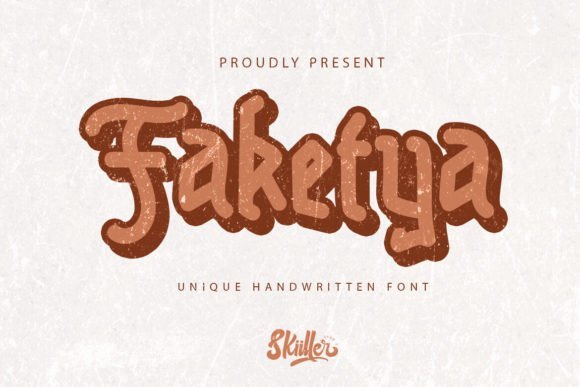
Unleash Your Creativity with the Faketya Font
Have you ever been at a children’s birthday party and seen the adorable handwritten invitations and decorations? The whimsical touch of a handwritten font can instantly elevate the mood and make any event more special. For designers, finding the perfect font to capture that playful spirit can be a challenge.
That’s where the Faketya Font comes in – a charming, handwritten font designed specifically for fun projects like children’s parties, cute quotes, and more. With its unique, cursive style, Faketya Font is the perfect addition to any designer’s toolkit. Whether you’re working on a project that requires a touch of whimsy or just want to add some personality to your designs, the Faketya Font is a valuable resource that’s sure to inspire.
- Unique Characteristics: Faketya Font features a unique blend of modern and traditional elements, with intricate details and ornaments that add a touch of elegance to any design.
Faketya Font Review
I recently had the chance to work with the Faketya Font, and I must say it’s an interesting choice. Here are my thoughts:
The Faketya Font has a unique, modern aesthetic that can add a touch of sophistication to any design project.
The font is highly legible, making it suitable for both digital and print materials.
The Faketya Font comes in a range of weights and styles, providing designers with plenty of flexibility.
The Faketya Font may not be suitable for projects that require a more traditional or classic look.
The font’s bold weights can appear somewhat harsh in certain contexts.
The Faketya Font may require some adjustments to line spacing and kerning to ensure optimal readability.
Overall, I think the Faketya Font is a solid choice for designers who want to add some modern flair to their projects. While it may not be suitable for every project, it’s a great option for those who want a unique and stylish font.
Faketya Font is ideal for:
– Creating attention-grabbing headlines and titles.
– Designing unique and creative graphics.
– Adding a touch of personality to your designs.